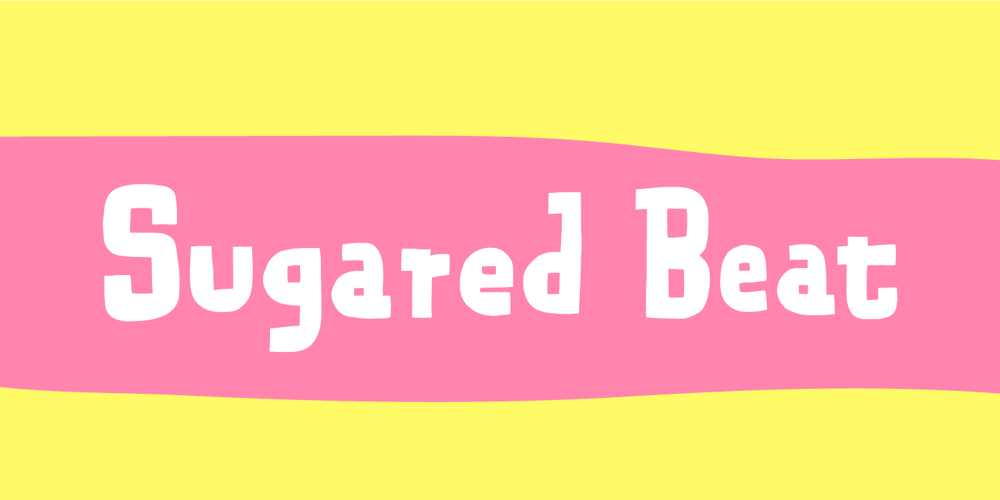
Sugared Beat
Sugared Beat font
Sugared Beat Font Family was designed by Jakob Fischer and published by PizzaDude.dk. Sugared Beat contains 2 styles and family package options. Its handmade, playful and super useful for anything that needs a fun and handmade twist!I have added 3 different versions of each letter and multilingual support – enjoy!